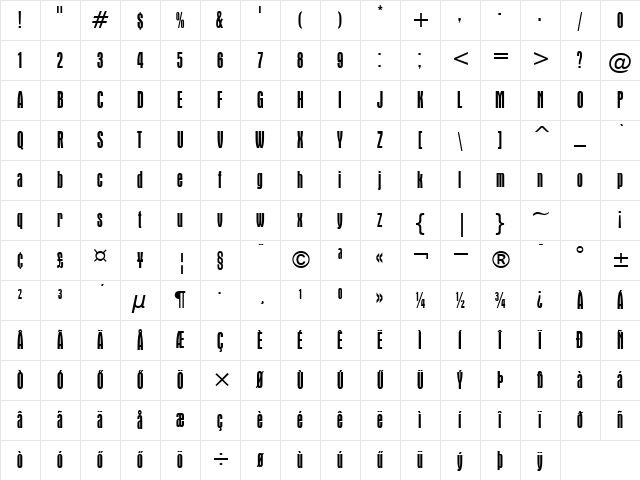
H_Aurora Condensed BT Regular
Complete H_Aurora Condensed BT Regular glyph index. Displaying only characters natively supported by H_Aurora Condensed BT Regular font.
Design Context for H_Aurora Condensed BT
H_Aurora Condensed BT is a composed and adaptable typeface that performs quietly and consistently across a wide range of design contexts. Its narrow stance lets it pack a punch even in space-constrained designs.
Pro Tip: Use H_Aurora Condensed BT in both headline and body roles to test its range before committing to a single application.